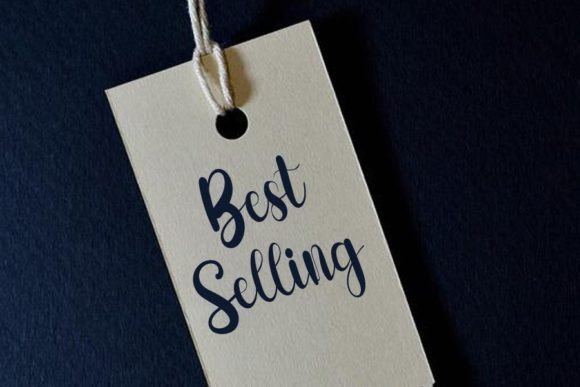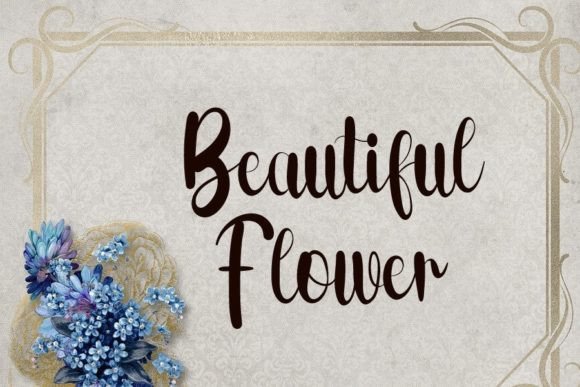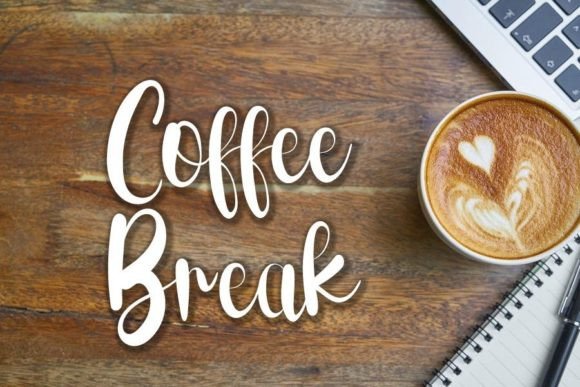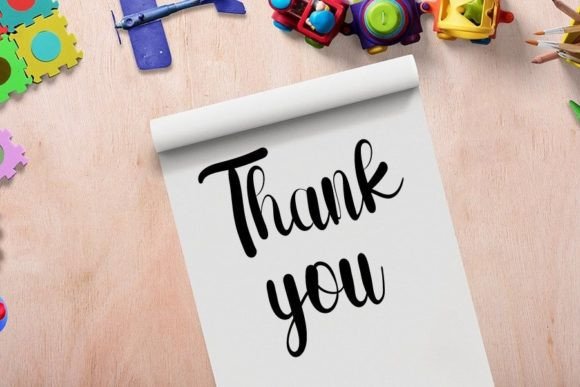
Introducing Always Font: Elevate Your Design Projects with a Fresh and Beautiful Handwritten Style
In the world of design, fonts play a crucial role in conveying the message and aesthetic of a project. Whether you’re a professional designer, a small business owner, or a crafter, finding the right font can make all the difference. If you’re looking for a fresh and beautiful handwritten font to take your designs to the next level, look no further than Always Font. In this article, we’ll explore the features and benefits of Always Font, and how it can help you create stunning designs for various projects.
What is Always Font?
Always Font is a simple and unique handwritten font, carefully crafted to add a personal touch to your design projects. Its fresh and beautiful style makes it perfect for a wide range of applications, including YouTube banners, covers, logos, mockups, wedding invitations, cards, flyers, crafts, and many more. With Always Font, you can add a touch of elegance and sophistication to your designs, making them stand out from the crowd.
Key Features of Always Font
- Handwritten style: Always Font boasts a beautiful handwritten style that adds a personal touch to your designs.
- Simple and unique: The font’s simplicity and uniqueness make it versatile and easy to use.
- High-quality: Always Font is a high-quality font, designed to deliver crisp and clear results.
- Multi-purpose: The font is suitable for a wide range of design projects, from digital to print.
Benefits of Using Always Font
- Enhanced visual appeal: The font’s beautiful handwritten style will add a touch of elegance and sophistication to your designs.
- Increased brand recognition: With a unique and memorable font, you can create a strong brand identity that sets you apart from the competition.
- Improved communication: Always Font is easy to read and understand, making it perfect for conveying your message effectively.
- Time-saving: The font’s versatility and ease of use save you time and effort in finding and experimenting with different fonts.
Design Project Ideas Using Always Font
Always Font is a versatile font that can be used in a wide range of design projects. Here are some ideas to get you started:
- YouTube banners and covers: Create stunning YouTube banners and covers that showcase your brand’s personality.
- Logos and branding: Use Always Font to create a unique and memorable logo that represents your brand.
- Wedding invitations and cards: Add a touch of elegance and sophistication to your wedding invitations and cards.
- Flyers and brochures: Create eye-catching flyers and brochures that grab attention and communicate your message effectively.
- Crafts and DIY projects: Use Always Font to add a personal touch to your crafts and DIY projects, such as handmade cards, gift tags, and more.
Tips for Using Always Font Effectively
- Use it sparingly: Use Always Font sparingly to avoid overwhelming your design. Balance it with other fonts and design elements to create visual harmony.
- Experiment with colors and textures: Experiment with different colors and textures to add depth and interest to your design.
- Keep it legible: Ensure that your text is legible by using a suitable font size and style.
Always Font is a fresh and beautiful handwritten font that’s perfect for designers, crafters, and small business owners looking to elevate their design projects. With its simple and unique style, high-quality design, and versatility, Always Font is an excellent choice for a wide range of applications. By using Always Font, you can add a touch of elegance and sophistication to your designs, improve brand recognition, and communicate your message effectively. So why wait? Download Always Font today and take your design projects to the next level!